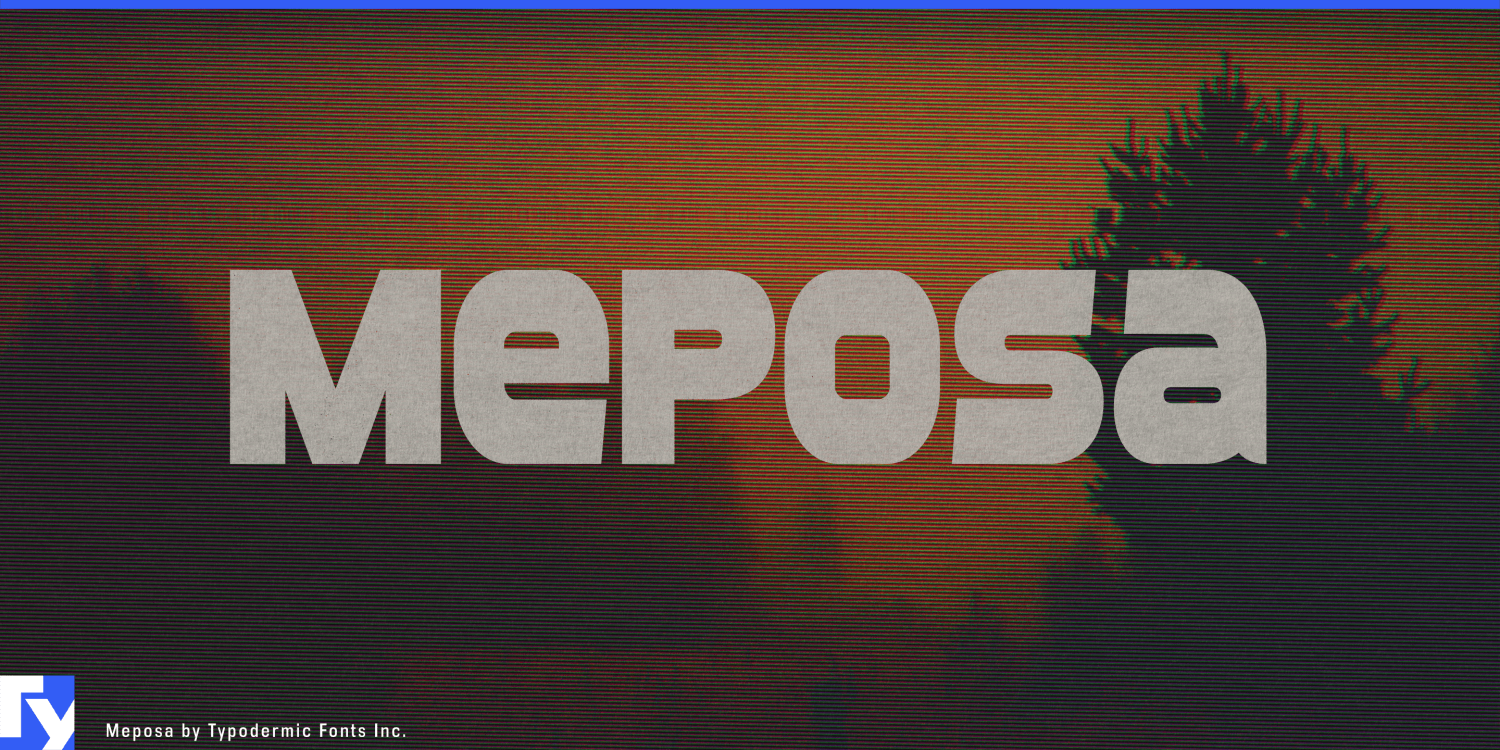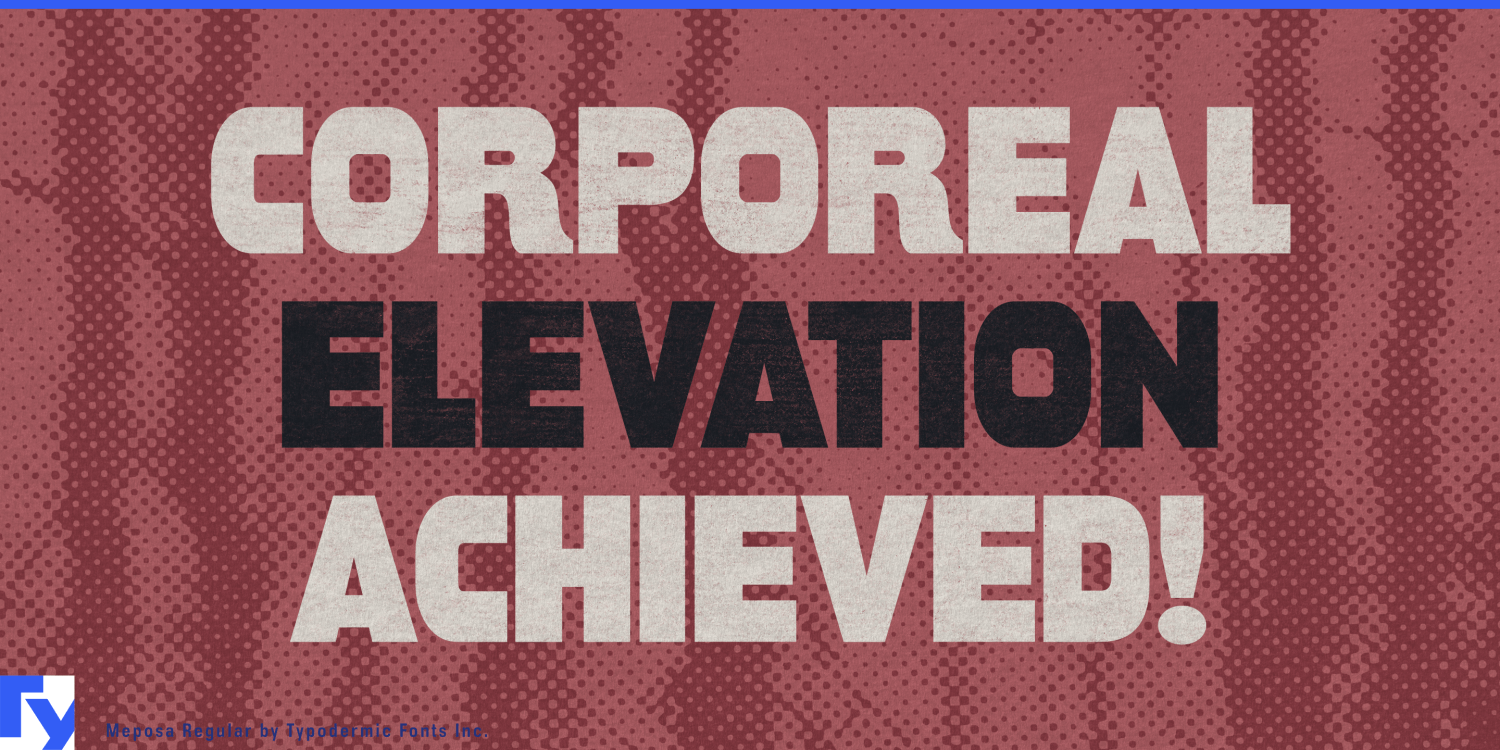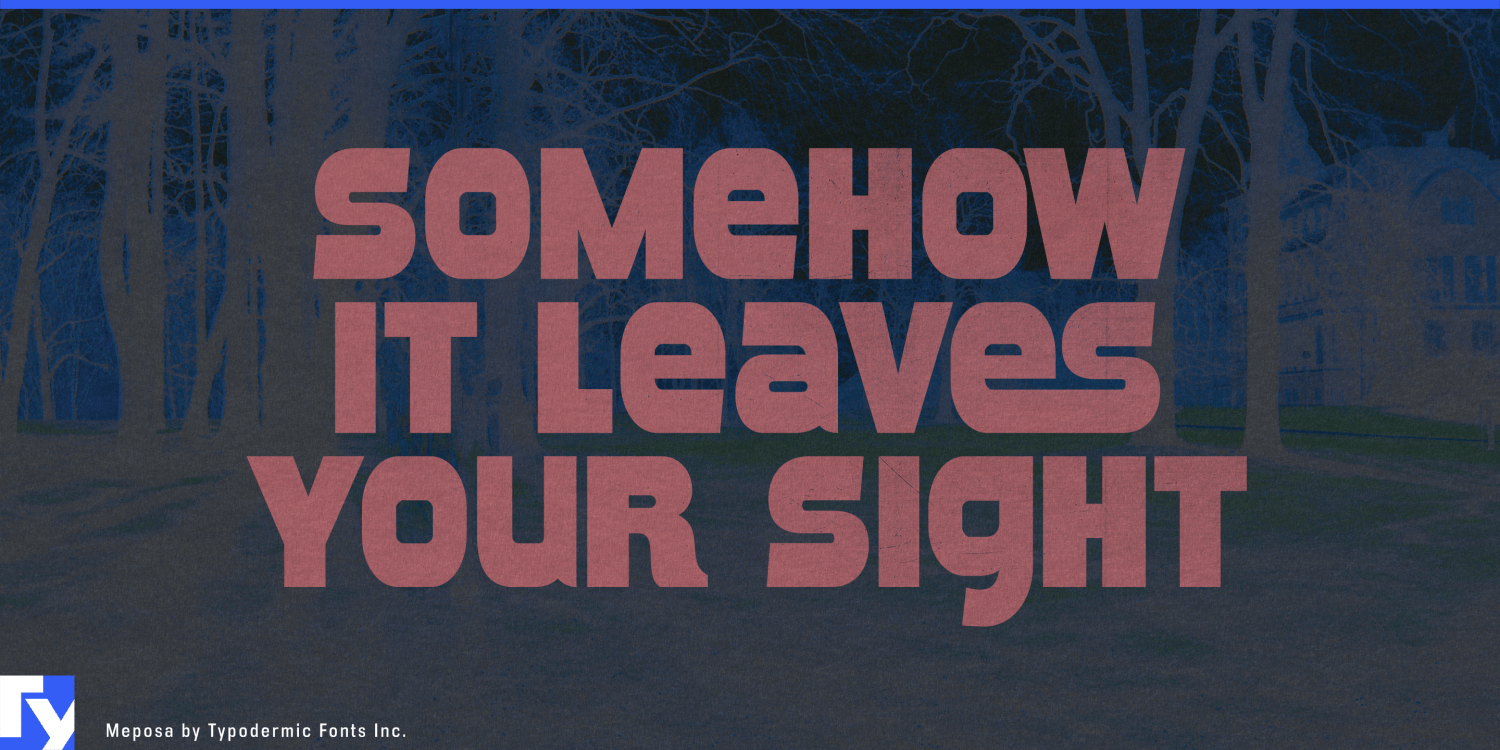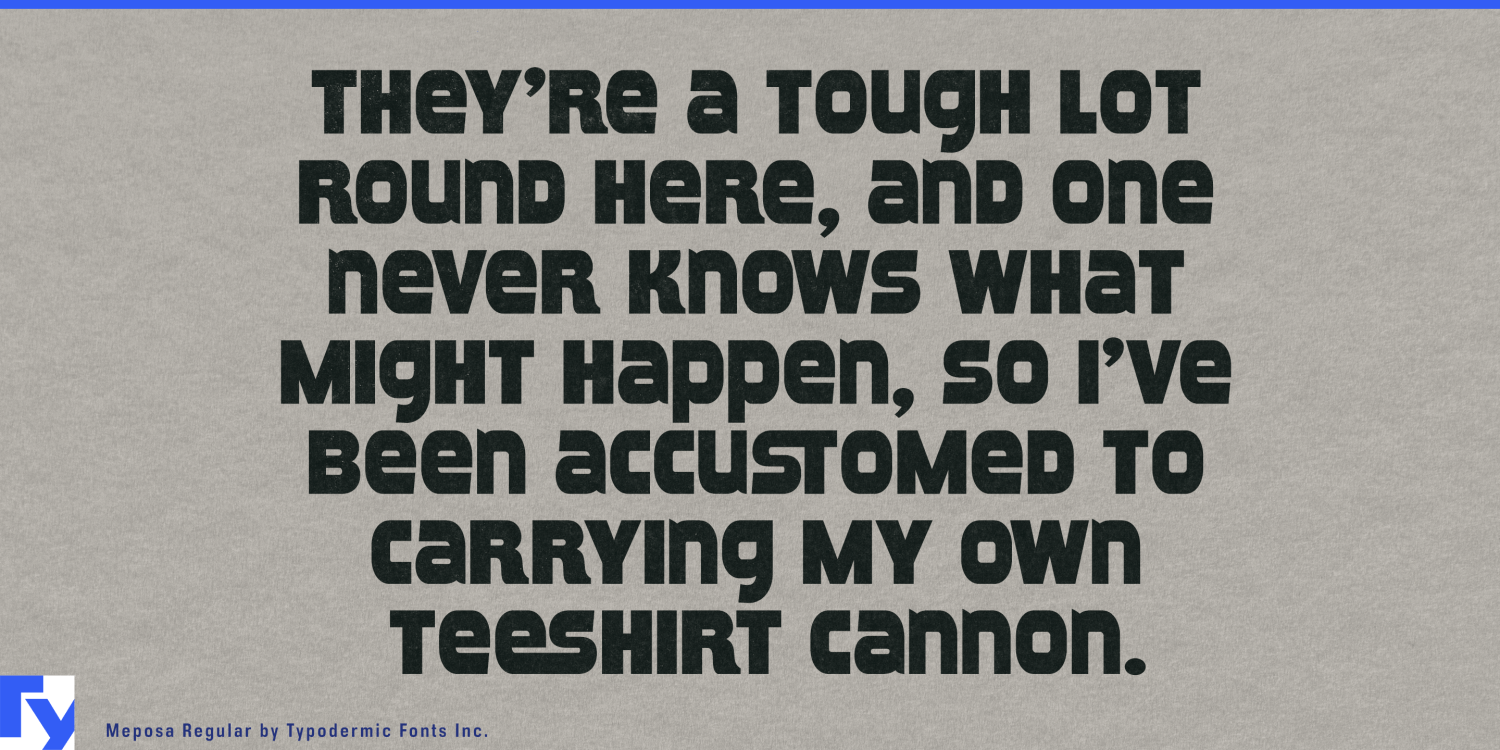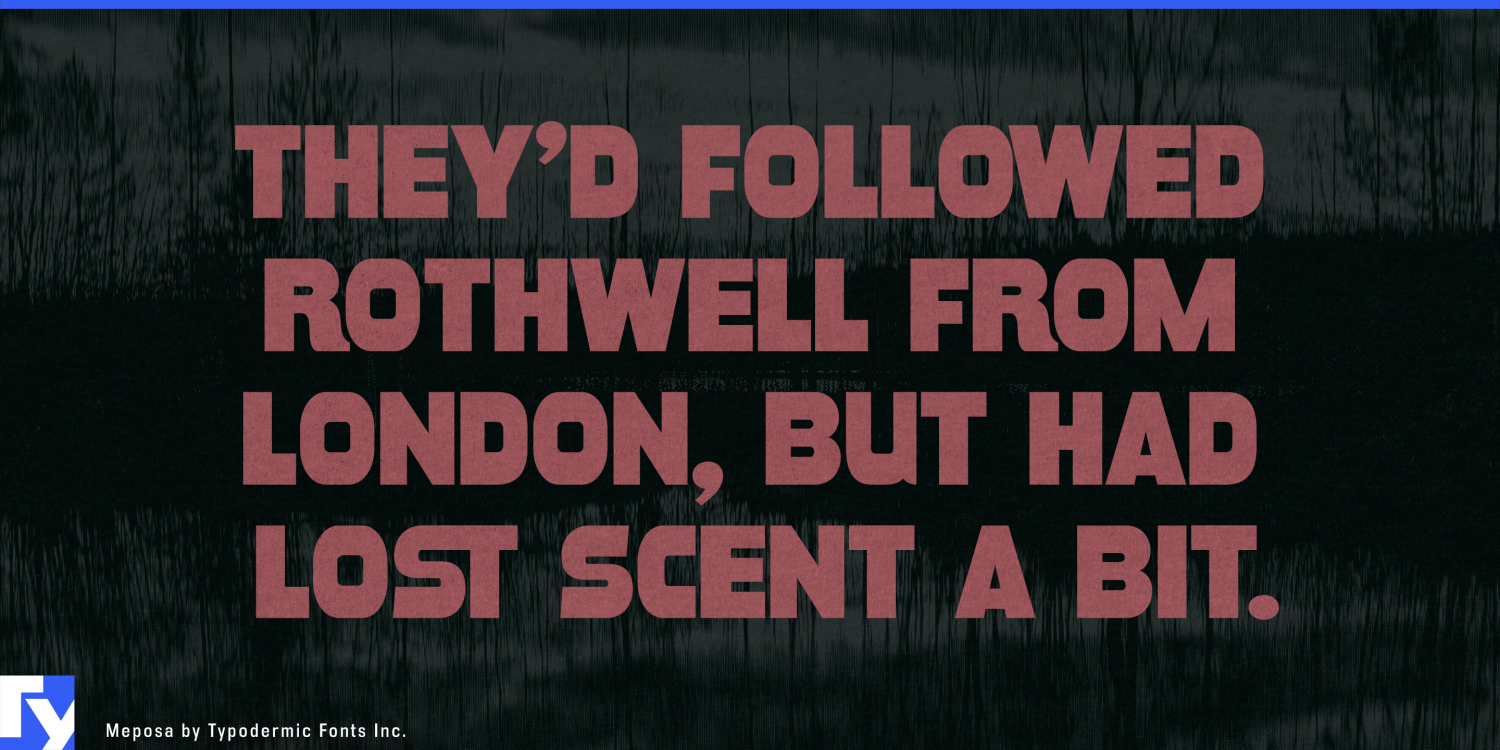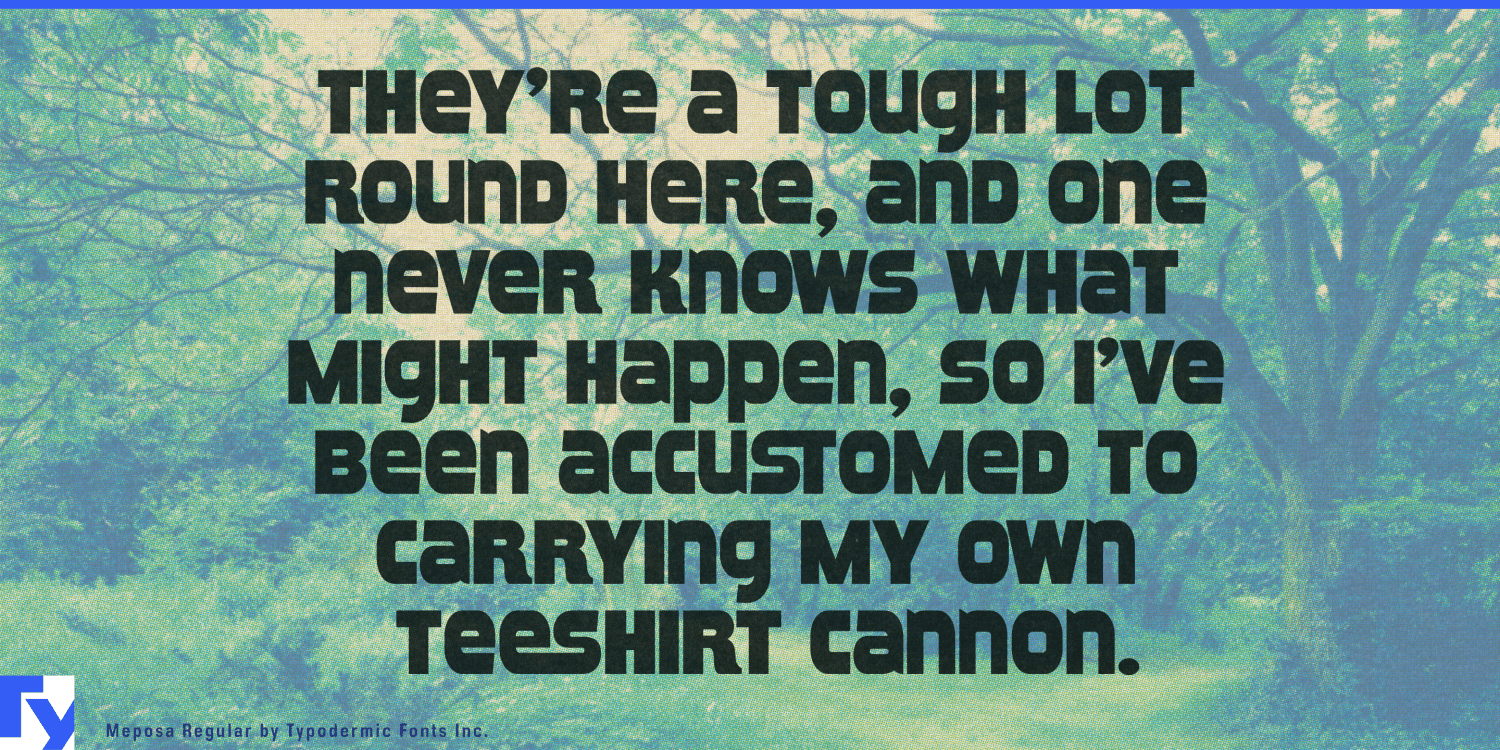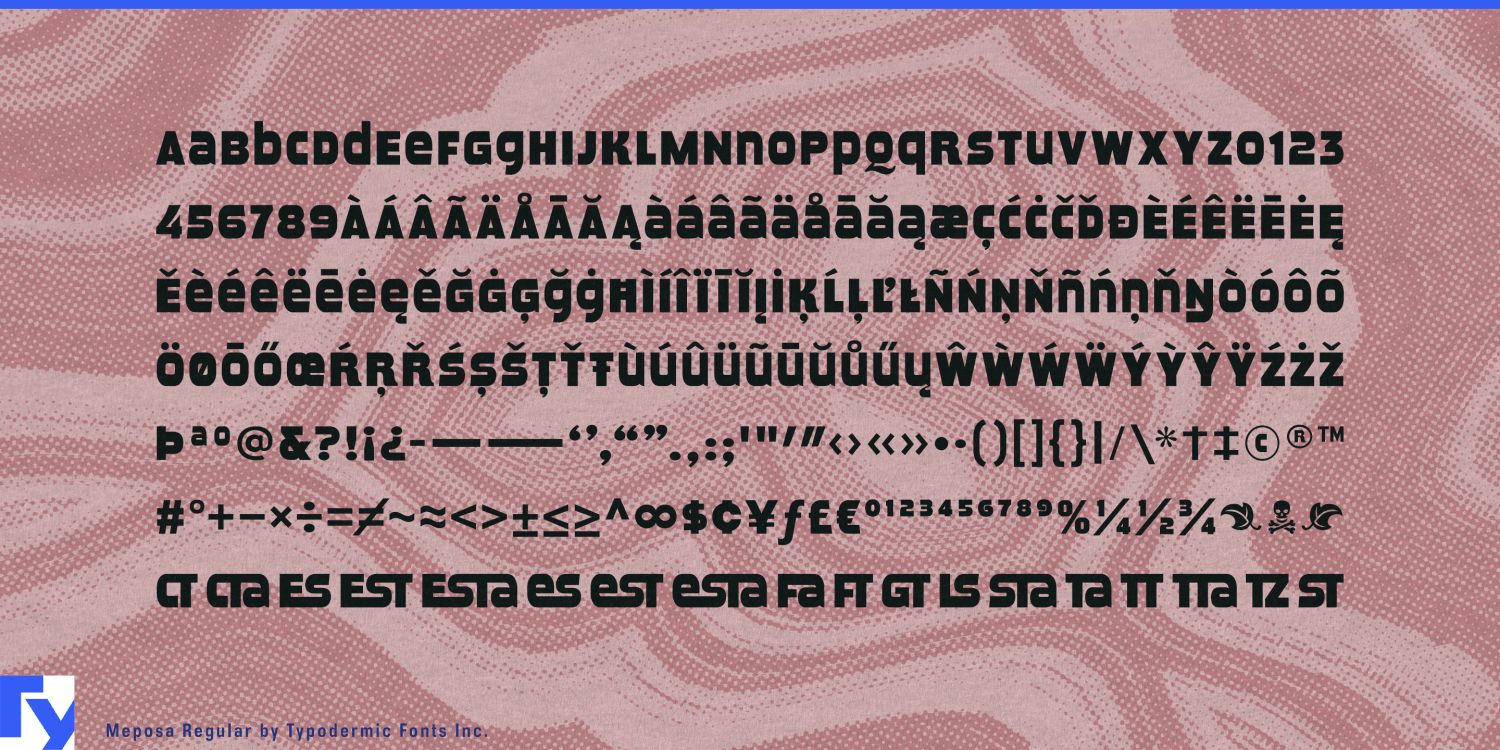
Meposa
Font Family by Typodermic
Future-facing outdoor brands often face an awkward visual choice. Heritage camping typography can make advanced equipment look nostalgic; tactical lettering pushes everything toward defense; sleek geometric tech fonts can feel strangely fragile once the product is covered in mud, repaired in the field, and packed back into a truck. Meposa offers another route. Its heavy, peculiar forms feel simultaneously handmade, industrial, retro, and technological, as though they came from a future where sophisticated machinery has been ordinary long enough to acquire some history.
Meposa Regular
Meposa Stamp